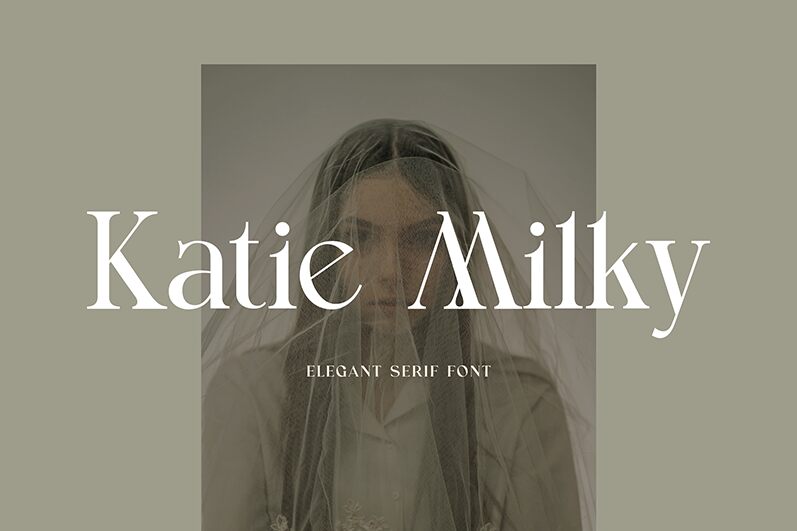
KatieMilky
Katie Milky, crafted by UI Creative, is a serif font that captivates with its elegant and refined aesthetic. The graceful curves and delicate strokes give it a sophisticated yet approachable feel, perfect for creating visually appealing designs. Its distinctive features lie in the harmonious blend of classic serif elements with modern touches, making it versatile for various applications.
Ideal for branding, editorial design, and high-end product packaging, Katie Milky adds a touch of luxury and professionalism to any project. Its unique charm makes it stand out in headlines and titles while maintaining readability in body text. This font is the perfect choice for designers seeking to convey elegance and style seamlessly across their work.